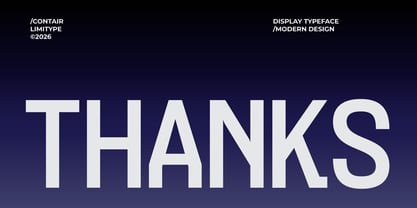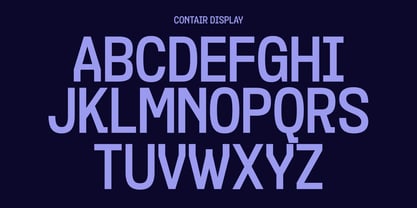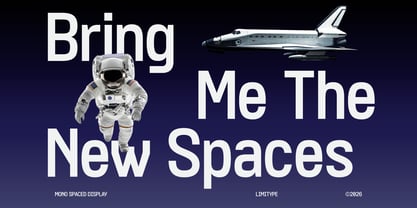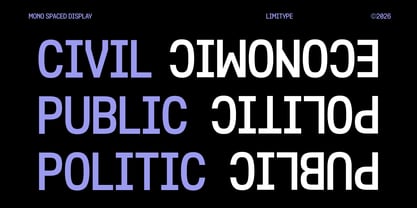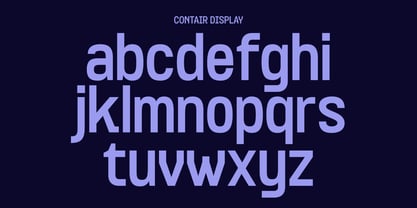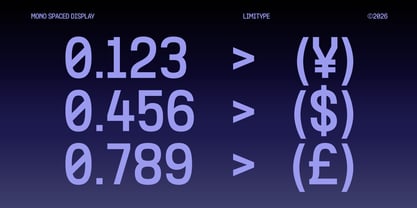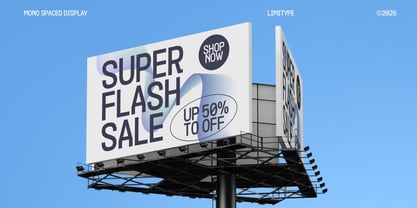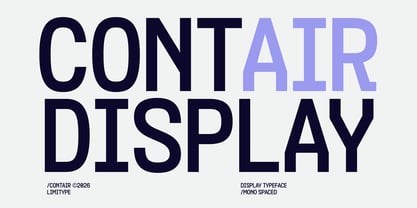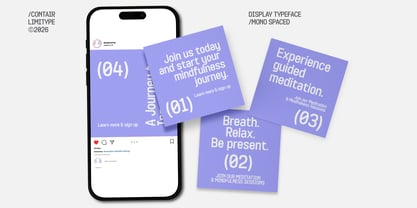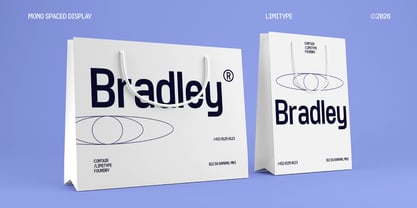
Contair
by limitype
The Contair Font Family was designed by Muhammad Muammar and published by limitype. Contair contains 1 styles.
Contair is a modern monospaced display font designed with a minimalist approach, delivering a clean, precise, and highly structured visual aesthetic. Its consistent spacing and geometric form create a technical yet elegant appearance, making it ideal for branding, editorial layouts, digital interfaces, posters, and contemporary visual identities. Contair available with: Uppercase Lowercase Number Symbol Multilingual